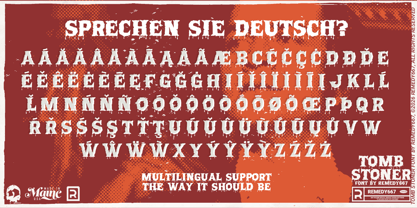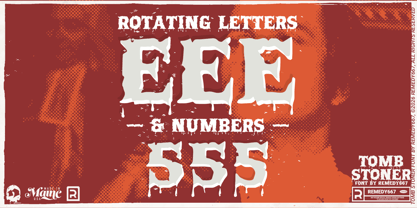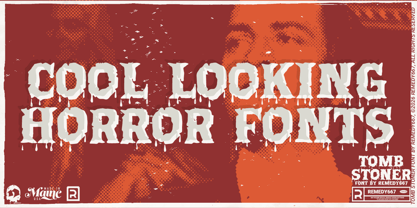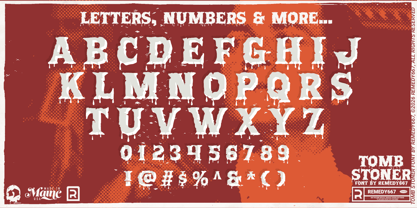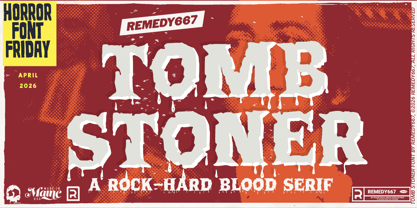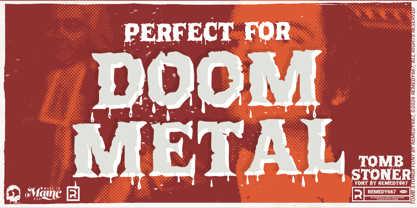
Tomb Stoner 667
by Remedy667
The Tomb Stoner 667 Font Family was designed by Nick Polifroni and published by Remedy667. Tomb Stoner 667 contains 1 styles. More about this family
Carved deep into the headstone of evil incarnate comes Tomb Stoner! From the blood-soaked lettering in the Blood Suckers / Blood Thirst press book, Tomb Stoner is a bold serif monstrosity. Dripping with dread and standing bold demanding attention, standing tall like a tombstone.! Built for titles that refuse to stay buried, Tomb Stoner delivers a powerful, attention-grabbing presence with a sinister vintage edge. Dripping descenders, corroded serifs and shifting letterforms give every word a living, breathing unease. Features Bold serif lettering with dripping horror details Contextual alternates for rotating, varied letterforms Multilingual support for worldwide terror Perfect for strong, attention-grabbing horror titles
Designers: Nick Polifroni
Foundry: Remedy667